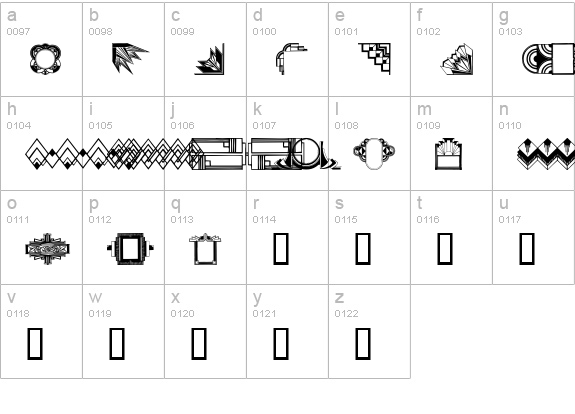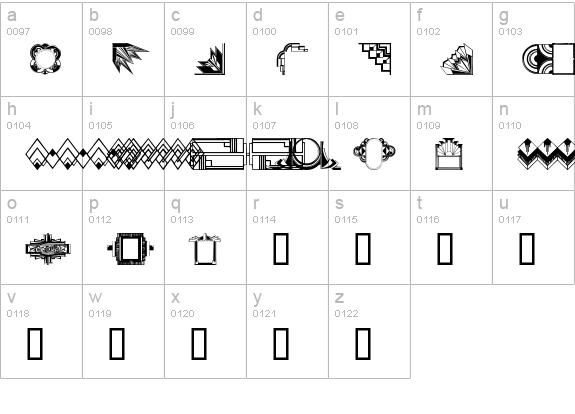
ArtDeco Motif Font Details
ArtDeco Motif font is a stunning display typeface that captures the essence of the Art Deco design movement with its bold lines and geometric shapes. This font exudes elegance and sophistication, making it perfect for projects that require a touch of vintage glamour. The intricate motifs and ornate details of ArtDeco Motif font add a touch of luxury to any design, whether it's used for invitations, posters, logos, or branding. Its unique style is sure to make a statement and draw attention to your work. What's even better is that ArtDeco Motif font is available for free download at FontsMarket.com, making it accessible to everyone who wants to add a touch of Art Deco flair to their projects. So why wait? Download ArtDeco Motif font today and elevate your designs with its timeless beauty.